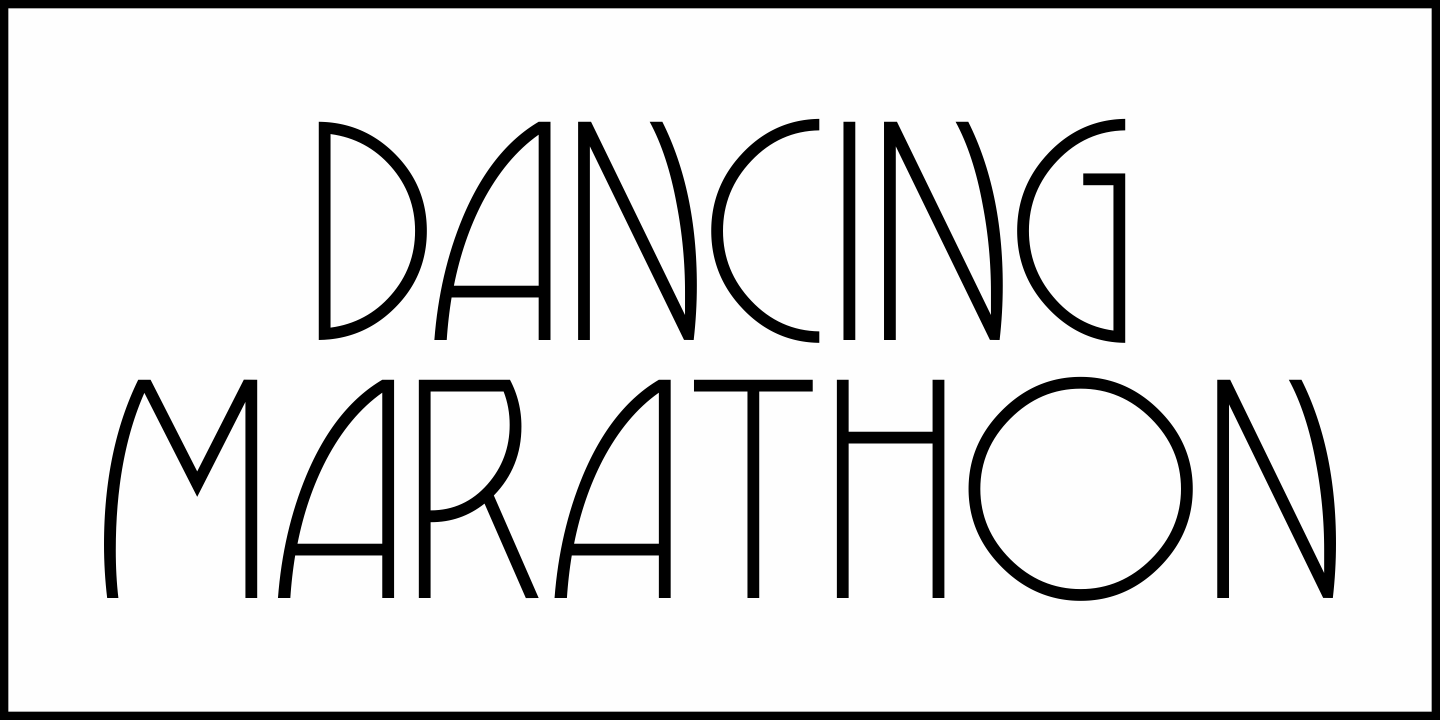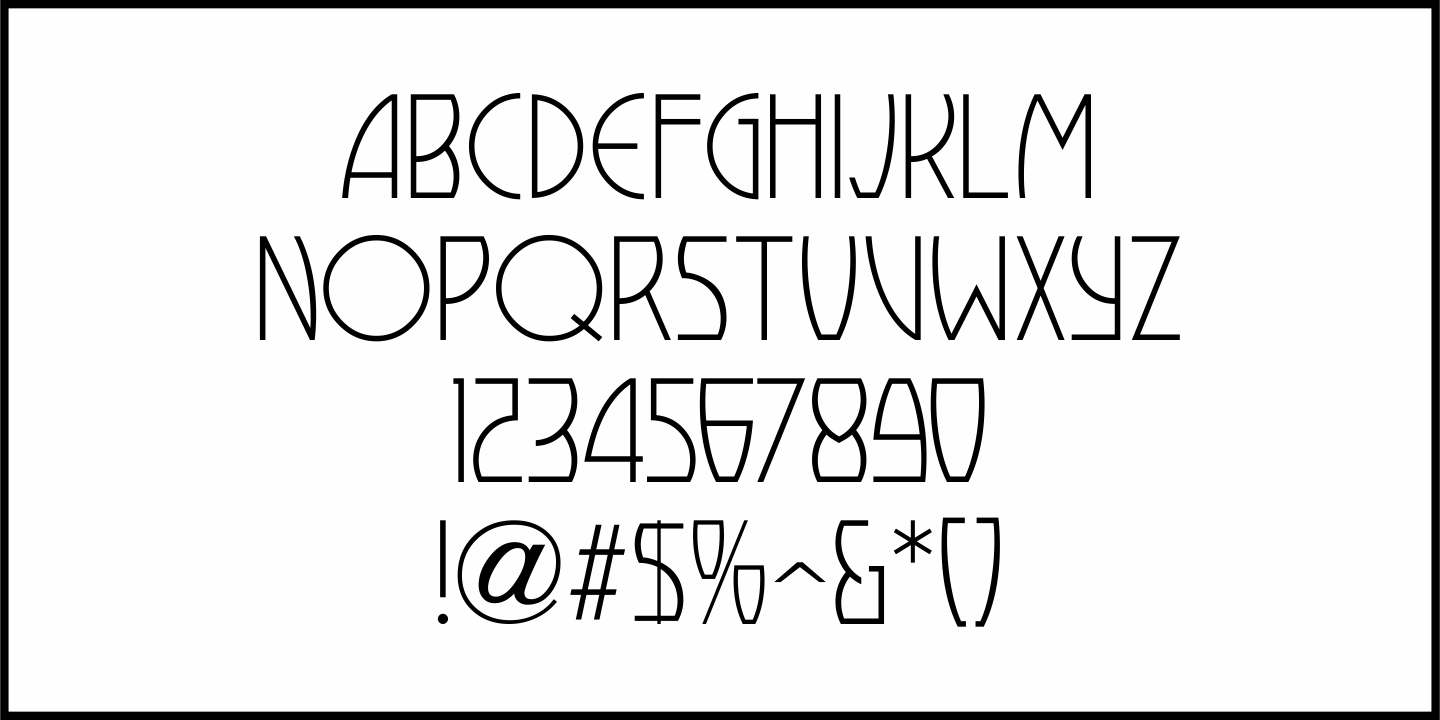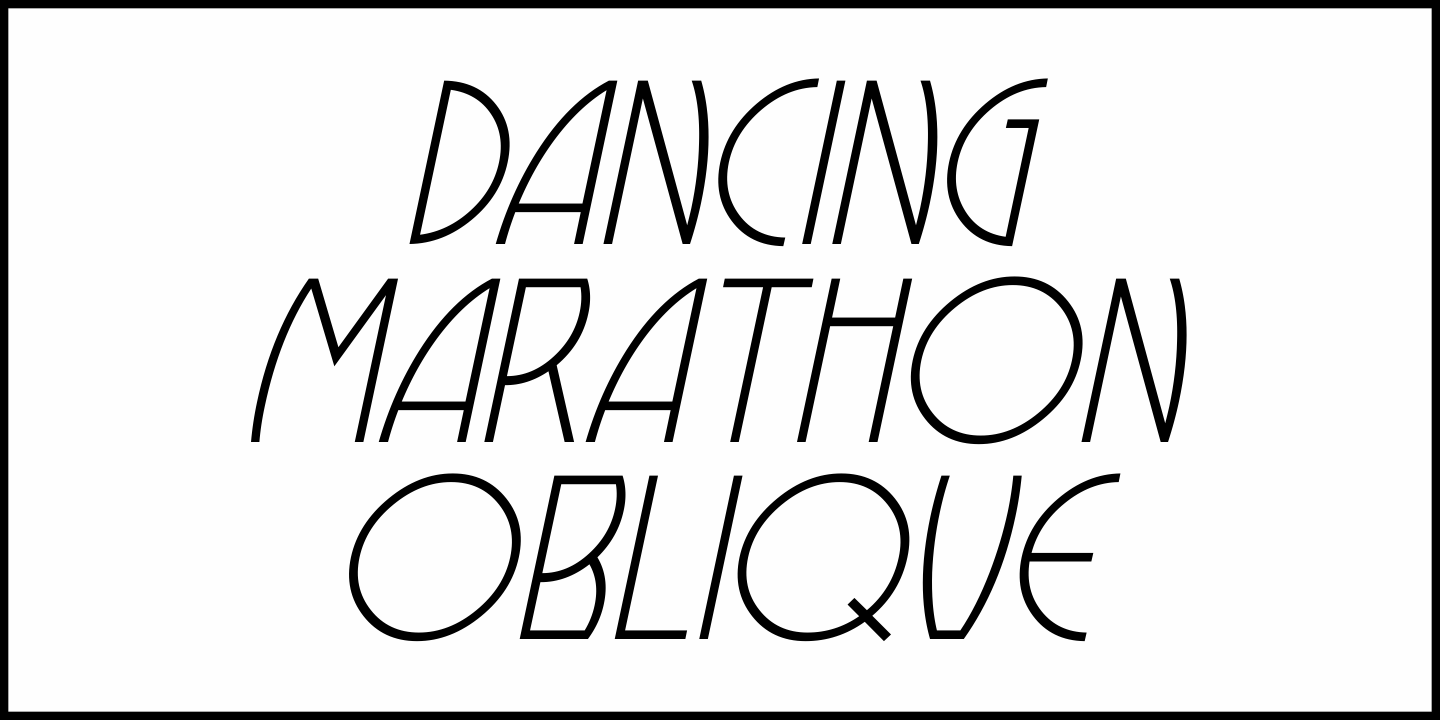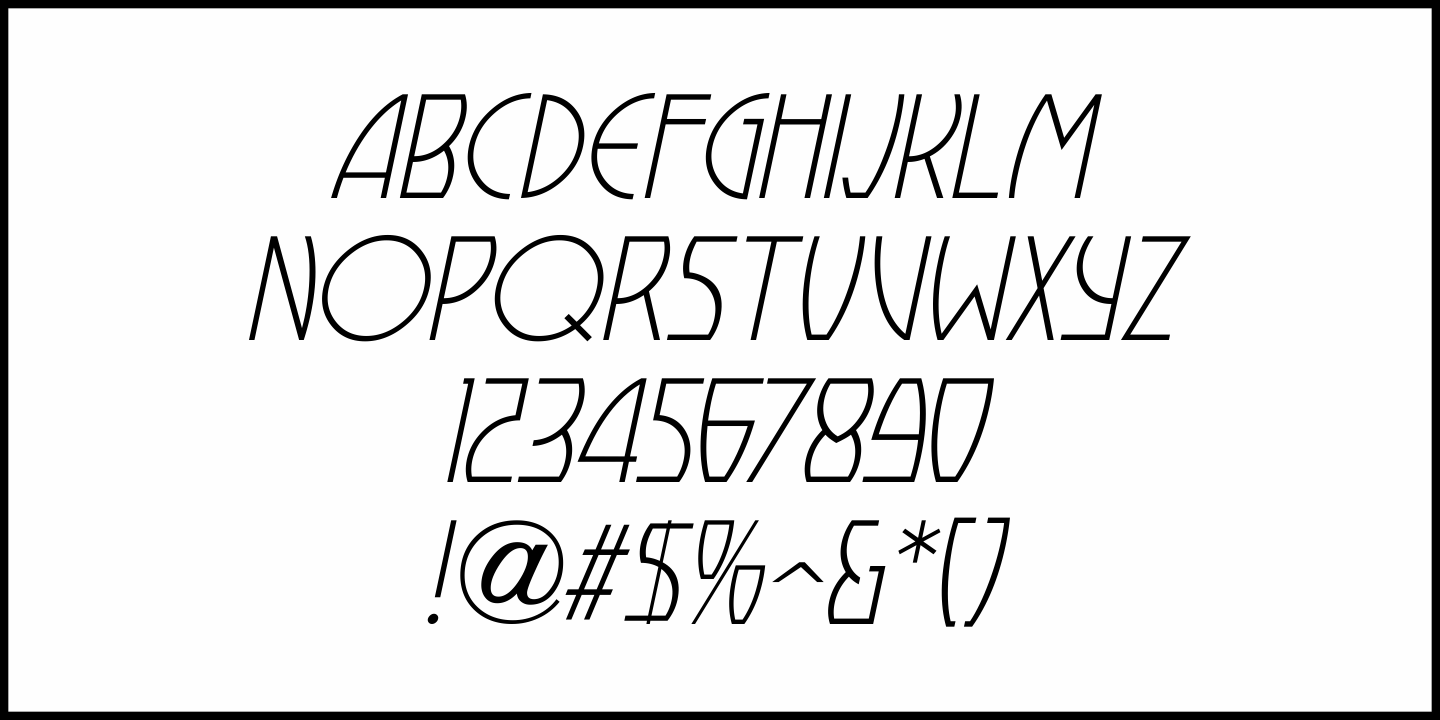
Dancing Marathon
The hand lettered title found on the cover of the 1932 sheet music for “Dancing Marathon” inspired the digital revival of this unusual lettering as well as the font’s name.
This eccentric Art Deco design (with a slight bit of Art Nouveau mixed in) is a thin, monoline typeface.
Dancing Marathon JNL is available in both regular and oblique versions.
Dance marathons got their start during the Great Depression as people desperate to earn a few dollars would enter into contests that went on for hours until the last couple remained standing on the dance floor.